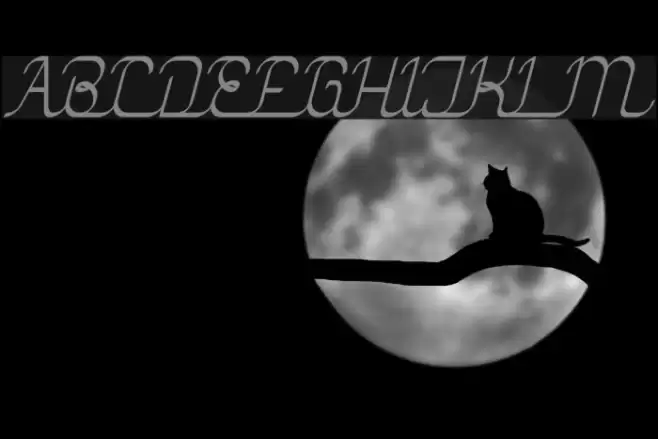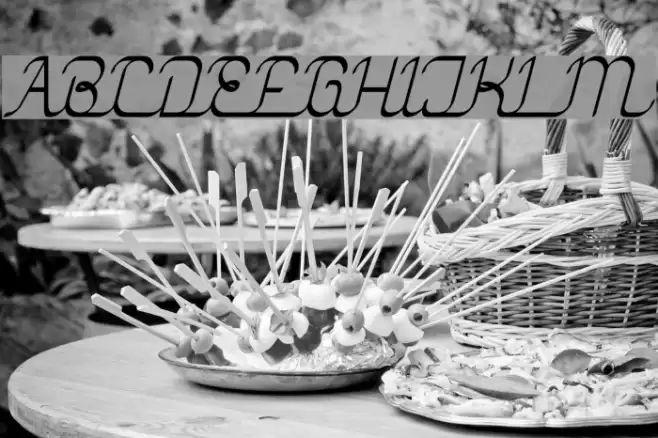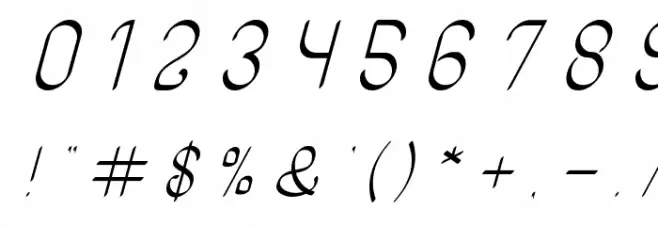
Authentic Love-Light Font
Authentic Love-Light Description
This font exudes a sense of elegance and fluidity, characterized by its cursive script style. The letters are interconnected, creating a seamless flow that is both sophisticated and artistic. The uppercase letters are bold and prominent, while the lowercase letters maintain a graceful and delicate appearance. The numerals and special characters are designed to complement the overall aesthetic, ensuring consistency throughout. The font's strokes are smooth and rounded, adding to its inviting and approachable feel. This font is perfect for projects that require a touch of class and refinement.
A cursive script font with elegant, interconnected letters and smooth strokes from Uncategorized fonts.
- Proposed Projects: Ideal for wedding invitations, greeting cards, elegant branding, and personal stationery.
- Overall Style: Elegant
- Use Case: Logos, Invitations, Personal stationery